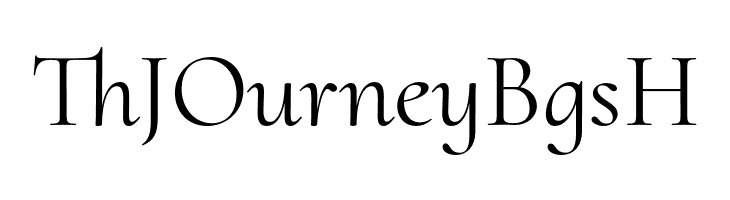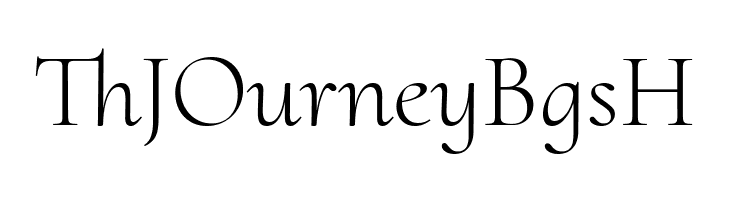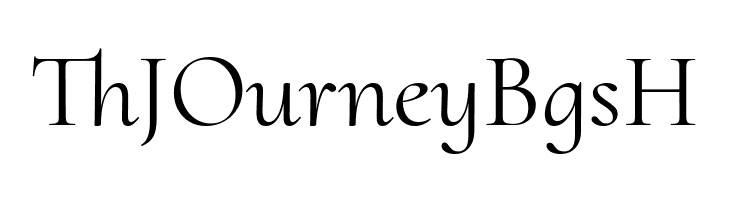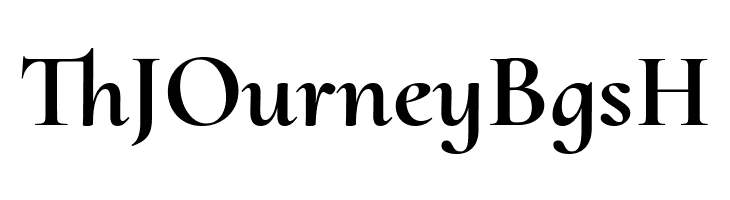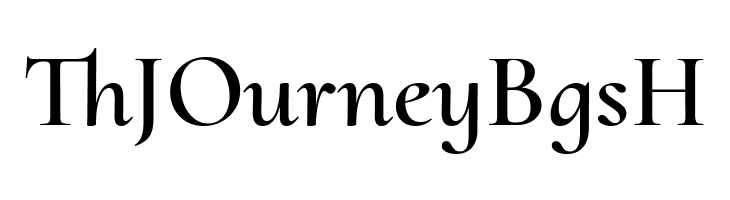
A bold, geometric outlined font with a striking and unique design.
A bold, hand-drawn font with a playful and dynamic style.
A bold, dynamic font with a playful, hand-drawn style.
A bold, modern sans-serif font with clean lines and uniform strokes.
A modern, bold sans-serif font with geometric influences and consistent stroke width.
A dynamic, cursive script font with fluid strokes and artistic flair.
A dynamic and expressive handwritten font with fluid, cursive strokes.
A playful, dotted font with a modern and informal style.
A playful, textured font with a hand-drawn, sketched appearance.
A dynamic, handwritten-style font with playful and energetic strokes.
A playful, hand-drawn font with dynamic strokes and an artistic flair.
A bold, circular font with enclosed characters, offering a playful and retro vibe.
A bold, rounded font with characters enclosed in thick circular outlines.
A playful, hand-drawn outlined font with a bold and whimsical style.
A playful, bold outline font with a hand-drawn, cartoonish style.
A bold, pixelated font with a retro, digital style.
A playful, hand-drawn font with bold, irregular characters.
Hand-drawn, sketchy marker-style decorative font.
A bold, playful font with a hand-drawn, informal style.
A bold, decorative font with a 3D effect and thick outlines, perfect for creative projects.
A traditional blackletter font with intricate detailing and gothic elegance.
A dramatic Blackletter font with intricate curves and sharp angles, exuding classic sophistication.
A decorative Blackletter font with ornate, gothic styling.
A traditional blackletter font with ornate, gothic letterforms and decorative flourishes.
A bold, stencil-style font with sharp angles and distinct cutouts.
A playful, casual handwritten font with irregular strokes and a natural flow.
A classic serif font with modern elegance and balanced proportions.
A bold, classic serif typeface with strong strokes and elegant serifs.
A modern serif font with bold, clean lines and balanced proportions.